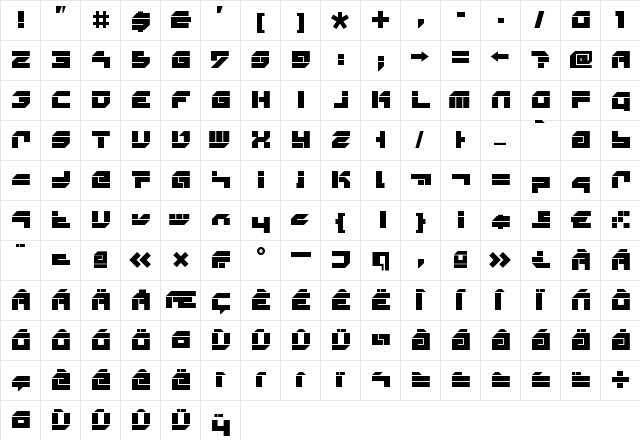
BsLandscope Regular
| Designer | Mario Feliciano |
Design Context for BsLandscope Typeface
BsLandscope is a composed and adaptable typeface that performs quietly and consistently across a wide range of design contexts.